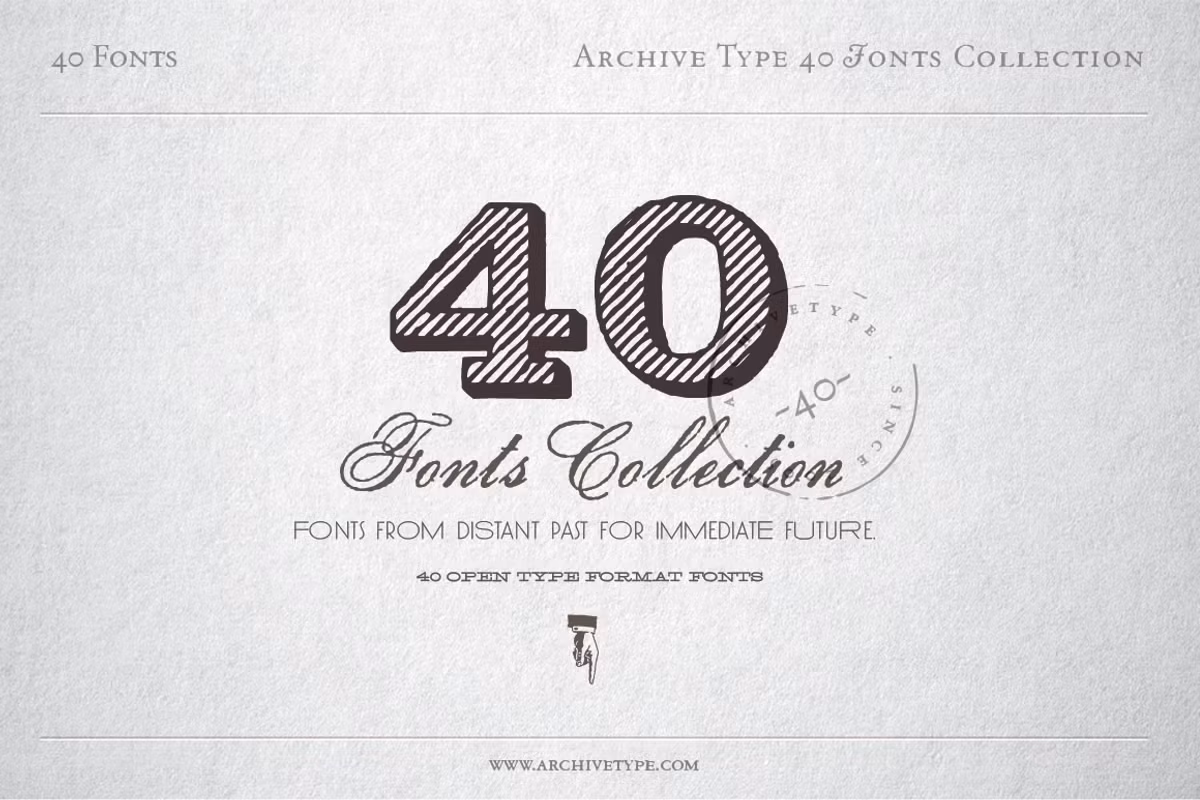
40 Archive Fonts Collection Free Download is a premium bundle featuring 40 unique and professionally crafted fonts, perfect for designers seeking variety and versatility. From vintage serifs to modern sans-serifs and artistic display styles, this collection is ideal for branding, packaging, posters, and web design. Please note that you must purchase this font for commercial use, but it is available as a free download for testing purposes. Elevate your creative projects with 40 Archive Fonts Collection Free Download, and unlock a diverse typographic library designed to inspire and impress.